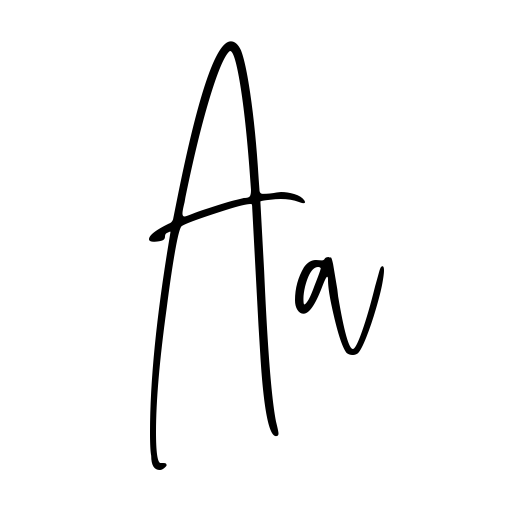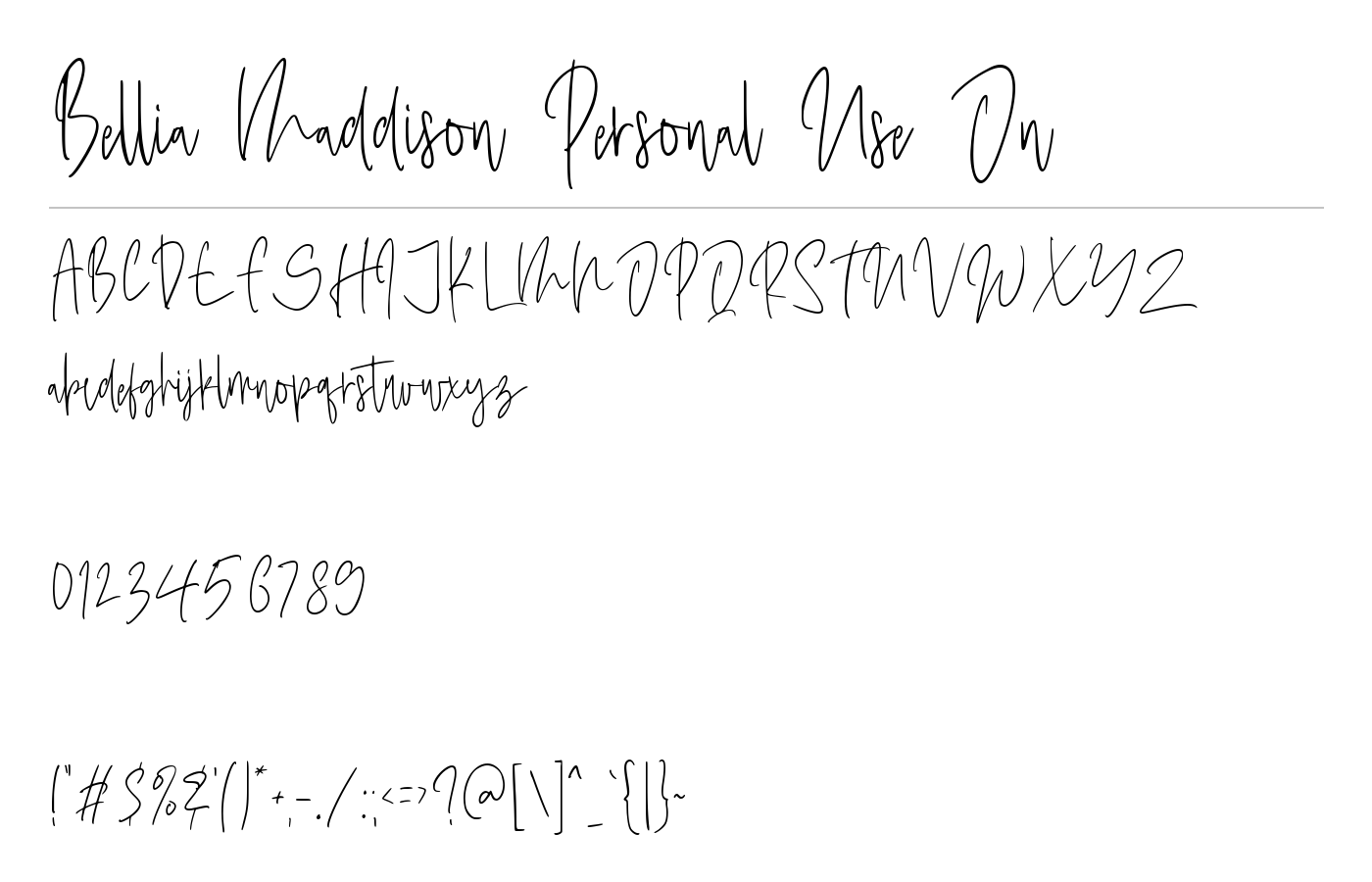
Bellia Maddison Personal Use On is a delicate, handwritten script font with a tall, narrow structure and light weight that gives it an airy and elegant feel. Its thin, slightly irregular strokes and informal style make it perfect for personal branding, invitations, and creative projects where a touch of sophistication and modern charm is desired. This font works best in headlines or decorative uses where a graceful, personal touch is needed rather than in body text.
Bellia Maddison Personal Use On Font
About Bellia Maddison Personal Use On Font